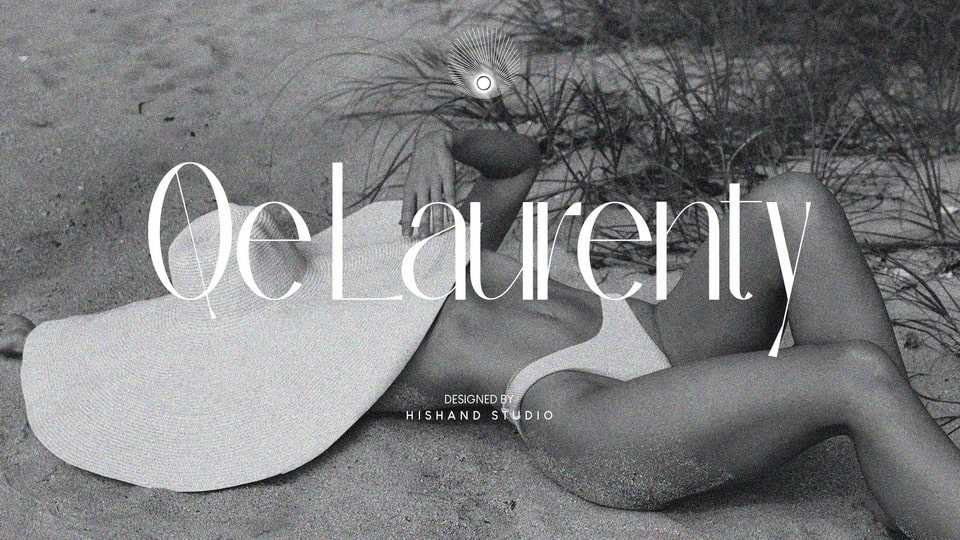
Download Qe Laurenty font, a graceful and sophisticated sans serif typeface that offers a harmonious blend of classiness and elegance. Whether used in print or digital media, the Qe Laurenty font commands attention with its tasteful and stylish presence.